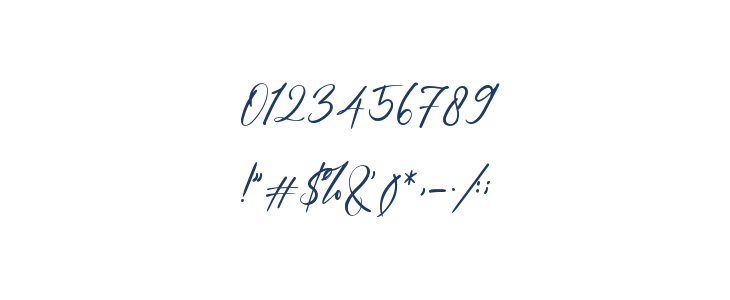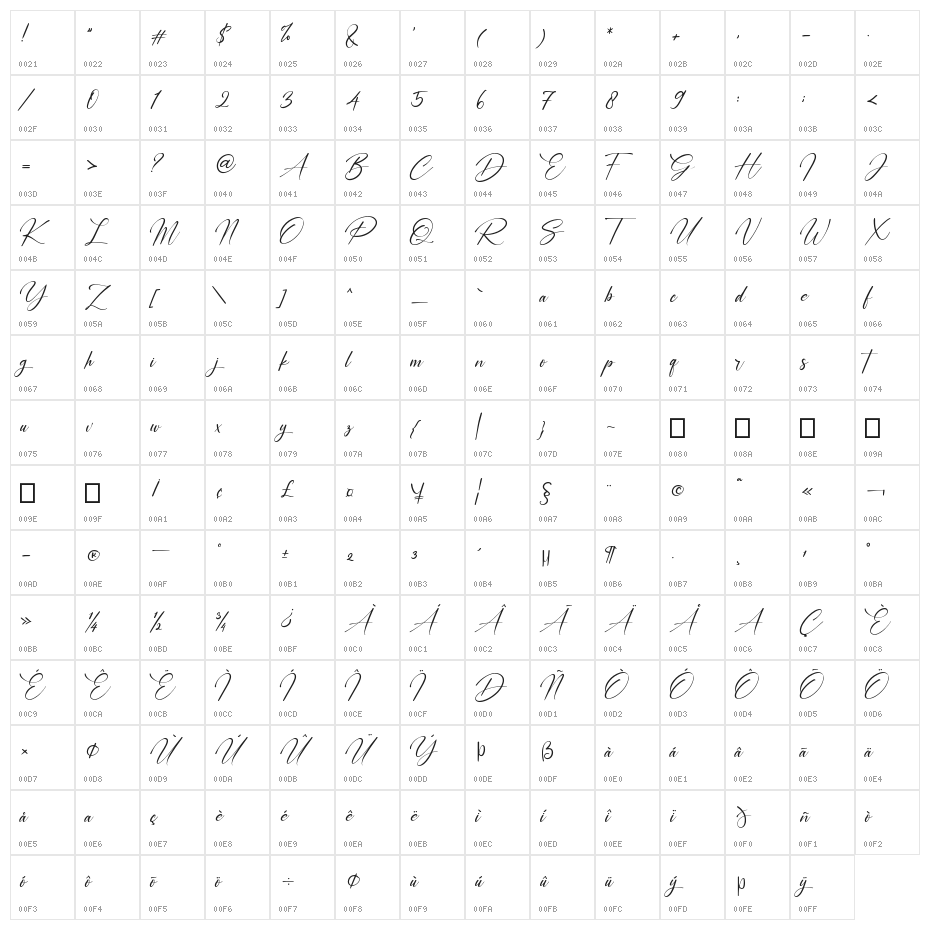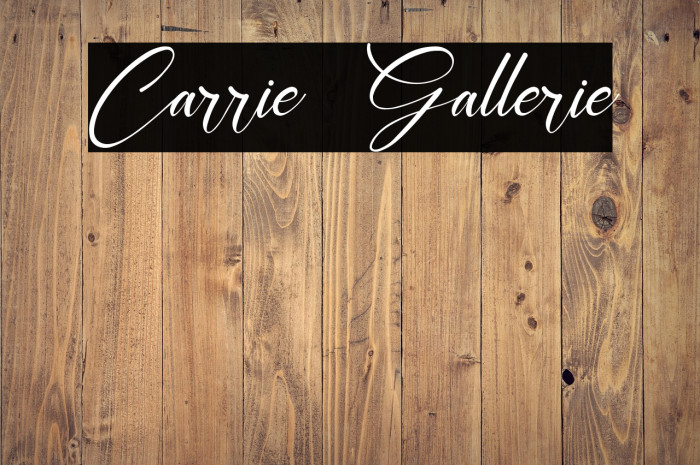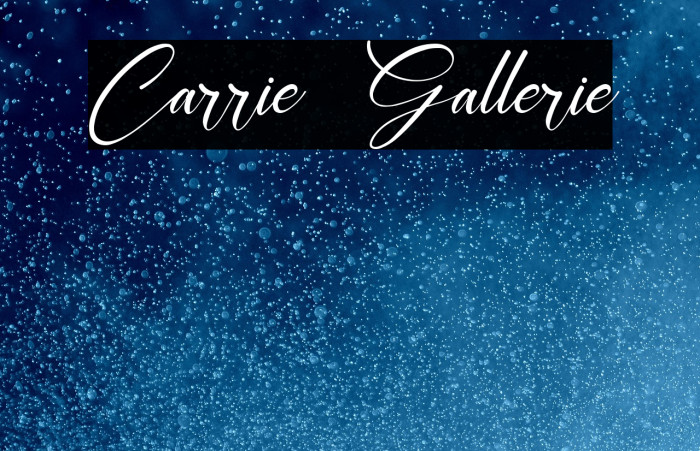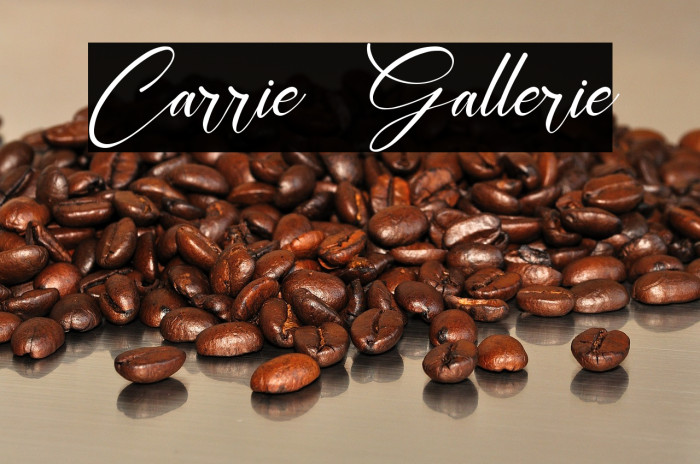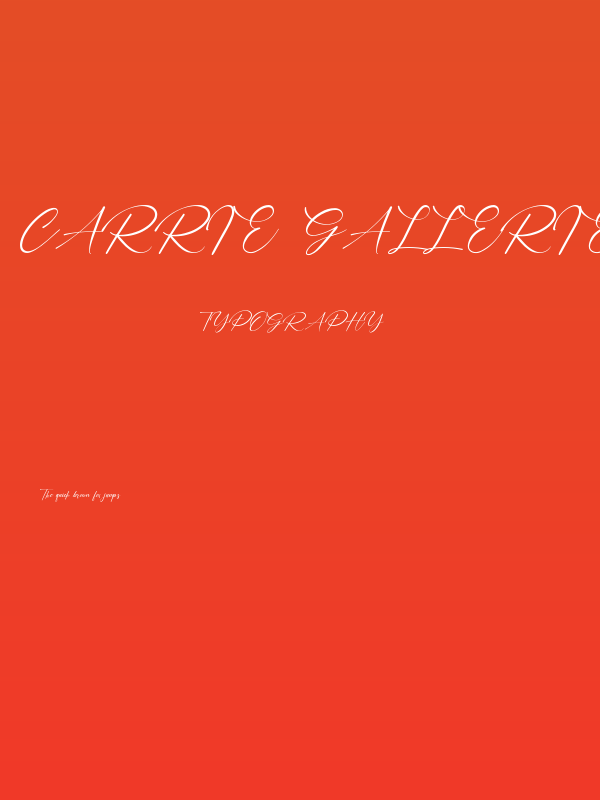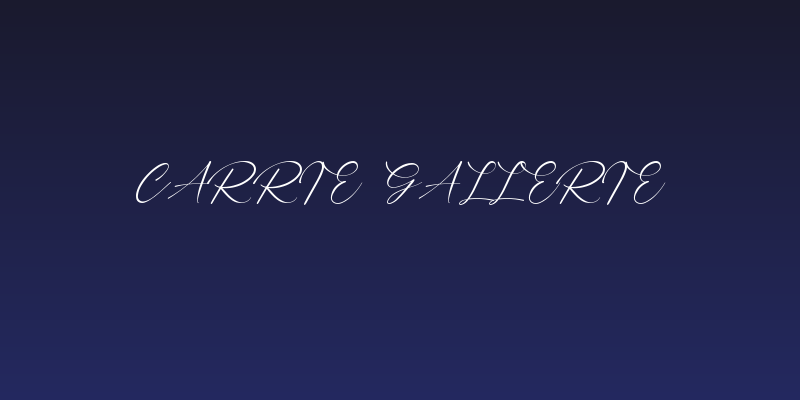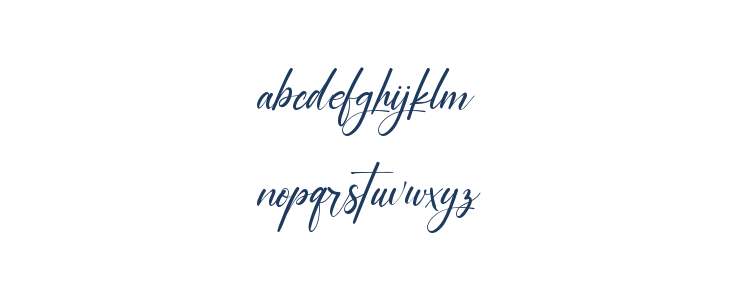
Carrie Gallerie Font
Carrie Gallerie Description
This font features an elegant and flowing script style, characterized by its smooth, cursive letterforms that exude a sense of sophistication and grace. The uppercase letters are particularly striking, with their elongated and sweeping strokes, while the lowercase letters maintain a consistent fluidity that enhances readability. The numerals and special characters are crafted with the same attention to detail, ensuring a cohesive look across all text. This font is perfect for projects that require a touch of elegance and refinement.
| Proposed Projects | Ideal for wedding invitations, elegant branding, greeting cards, and upscale packaging. |